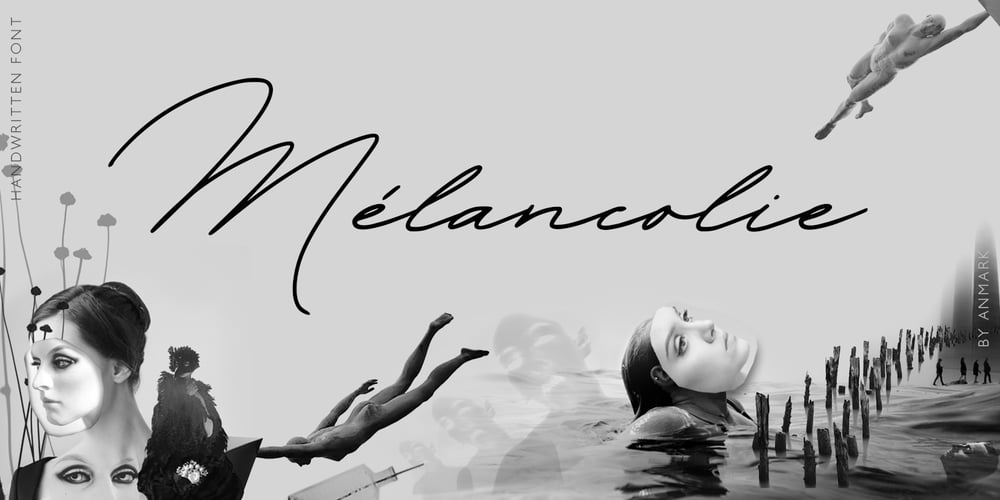
Melancholie Font Family was designed by Anna Markovets and published by Anmark. Melancholie contains 1 styles and family package options. I’m pleased to introduce my handwritten font Melancholie. Melancholie is a calm and elegant font. It is perfect for invitations, cards, branding projects, packaging, magazines, social media, logos, signatures, quotes, headers and many more… You can use it for long texts or short phrases. The modern calligraphy uppercase letters are ideal for monograms and logos. Melancholie supports Spanish, German, French, Italian, Portuguese, Swedish, Norwegian, Danish, Finnish and others.